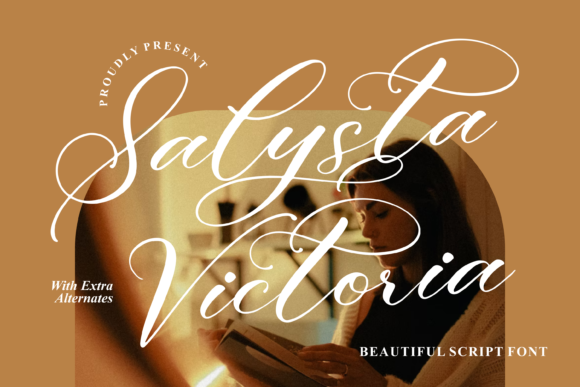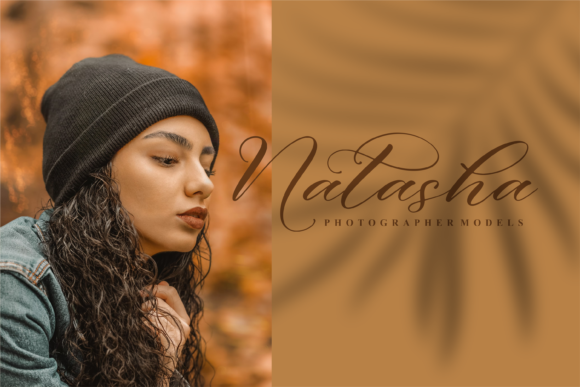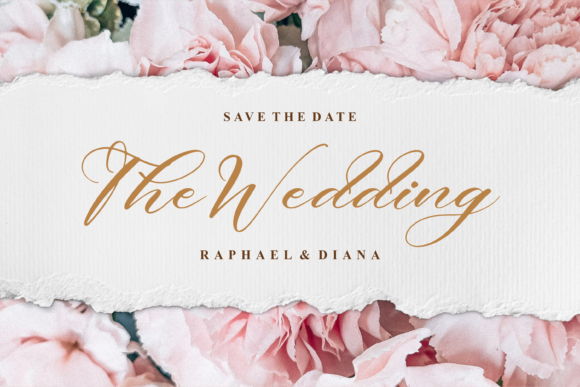
About Salysta Victoria Font
Salysta Victoria is an elegant script font with a contemporary atmosphere and impeccable form, inspired by timeless classic calligraphy. This font is PUA encoded which means you can access all of the amazing glyphs and ligatures with ease!